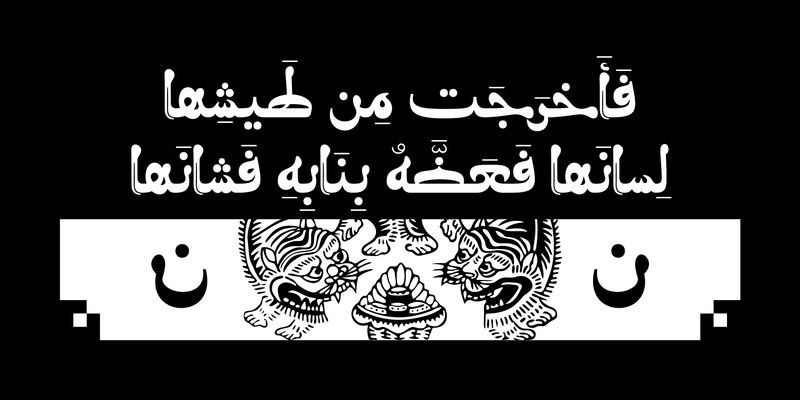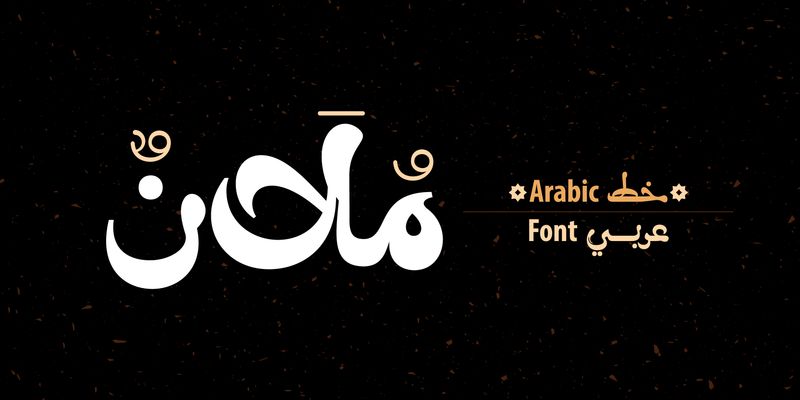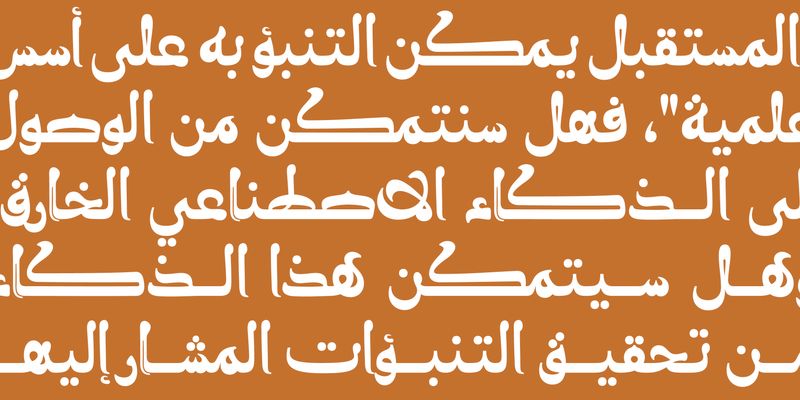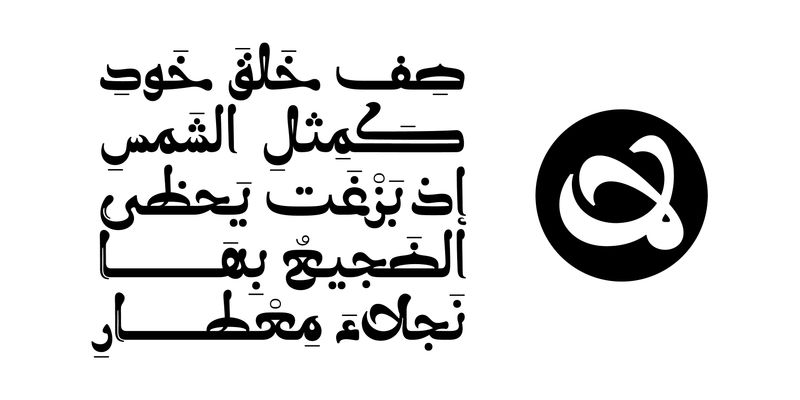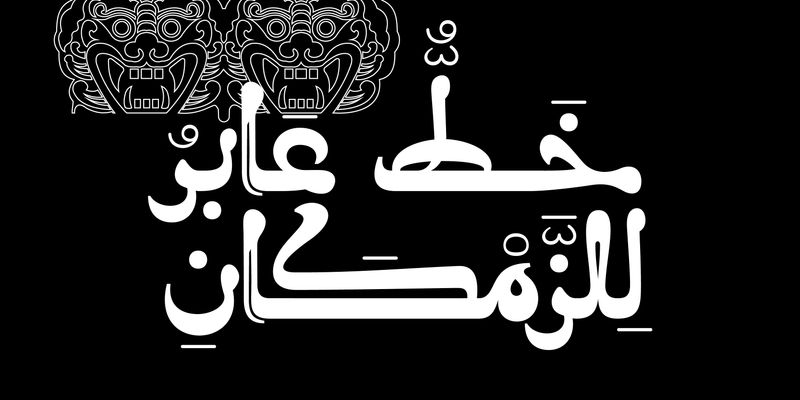
Molan (the Arabic word for “Softened” or “Suppled”) is an Arabic display font featuring a semi‑calligraphic letterform structure. Its design is inspired by the Maghrebi script, blended with select characteristics of the Naskh style. Molan is suitable for modern design projects, including web, print, advertising, and branding. It is compatible with Windows, macOS, and mobile applications.